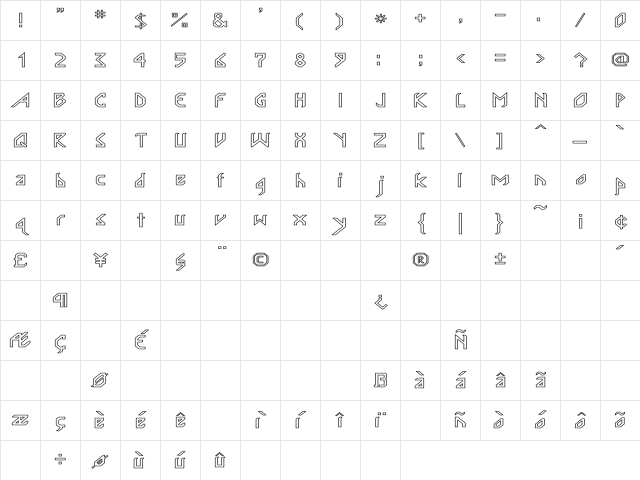
InkaBod Large Hollow Regular
Design Context for InkaBod Large Hollow
InkaBod Large Hollow is a composed and adaptable typeface that performs quietly and consistently across a wide range of design contexts.
Pro Tip: Use InkaBod Large Hollow in both headline and body roles to test its range before committing to a single application.